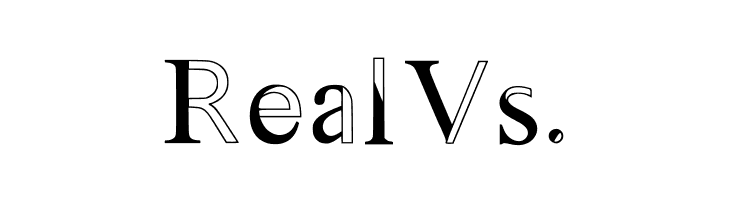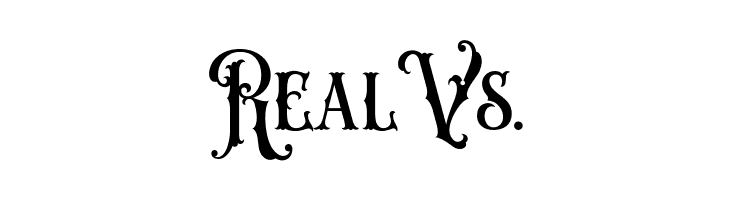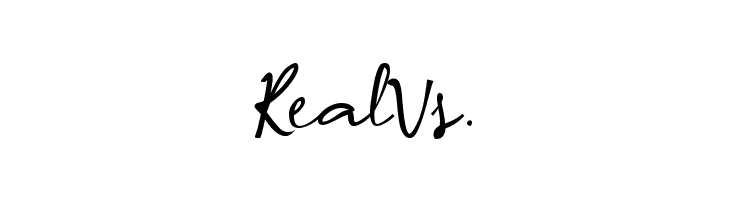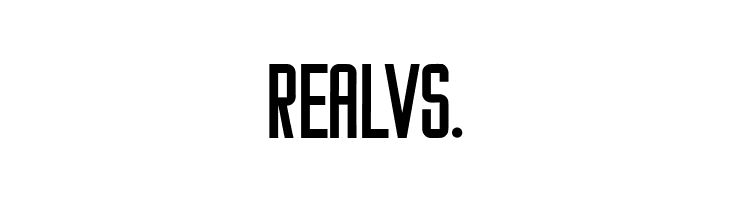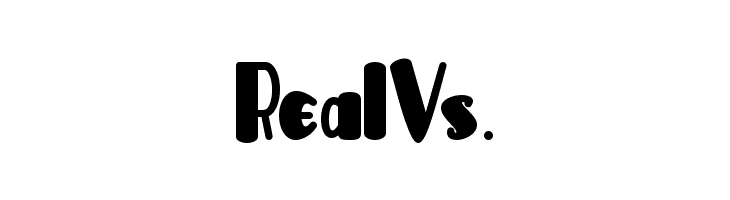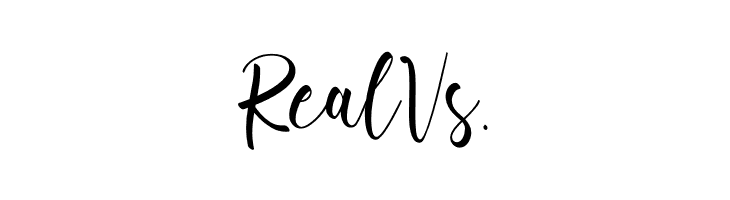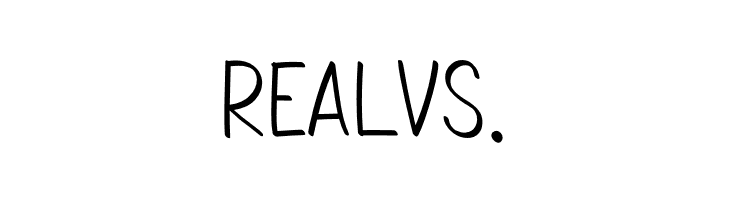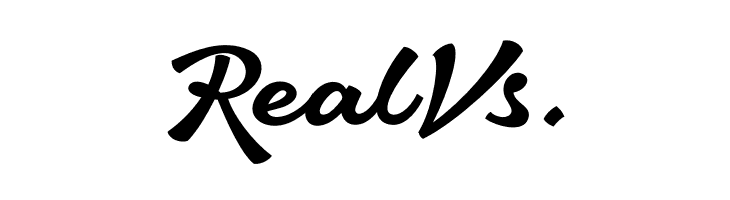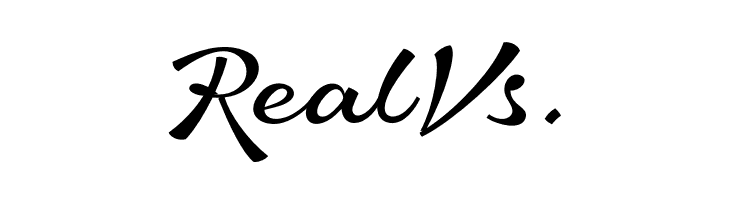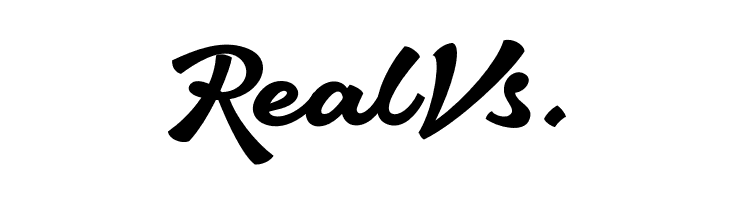
A bold, decorative font with thick, rounded strokes and a modern-vintage style.
A bold, high-contrast font with a modern and vintage blend.
A playful, handwritten font with tall, narrow letters and smooth strokes.
A flowing, cursive script with elegant loops and swashes.
A bold, expressive script font with interconnected characters and strong strokes.
A bold, flowing script font with interconnected letters and a dynamic style.
A lively, flowing script font with elegant, cursive letterforms.
A graceful script font with flowing, connected letters and elegant flourishes.
A bold, modern sans-serif font with clean, geometric lines.
A bold, modern sans-serif font with geometric influences and rounded edges.
A clean, modern sans-serif font with consistent stroke width and rounded edges.
A bold, modern font with geometric influences and consistent stroke width.
Outlined, boxy decorative font ideal for icon overlays.
A bold, geometric font with a pixelated, digital appearance.
A playful pictogram font with clocks, watches, and time-themed illustrations.
An elegant, flowing script font with ornate uppercase and smooth lowercase letters.
A pixelated, dot-matrix font with a retro digital aesthetic.
Bold, geometric icon set with check and X marks.
An ornate, decorative font with intricate swirls and high contrast, perfect for artistic projects.
An ornate and decorative font with intricate swirls and embellishments.
A modern, high-contrast font with a unique cut-out style.
A bold, geometric font with strong lines and modern appeal.
A bold, geometric font with a modern and impactful style.
A dynamic, cursive handwritten font with an elegant and fluid style.
A casual, elegant handwritten font with fluid strokes and dynamic slant.
A playful, bold font with rounded and angular elements, perfect for creative projects.
A modern, elegant script font with flowing, connected letters.
A bold, flowing script font with a dynamic and energetic style.